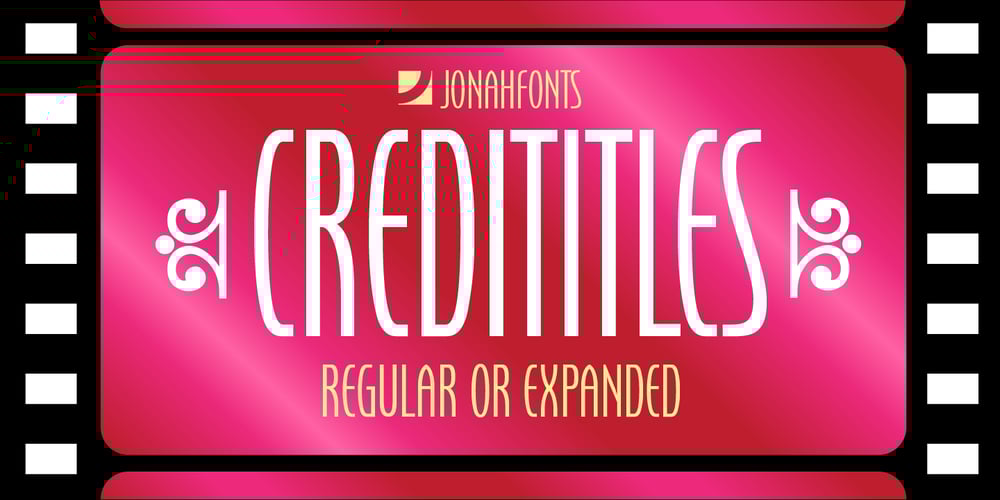
Credititle
Credititle font
Credititle Font Family was designed by published by Jonahfonts. Credititle contains 2 styles and family package options. A condensed tall upright font with lowercase small-caps. Basically designed for movie posters. May also be used for a variety of tight-fitting type designs, from packaging to captions.